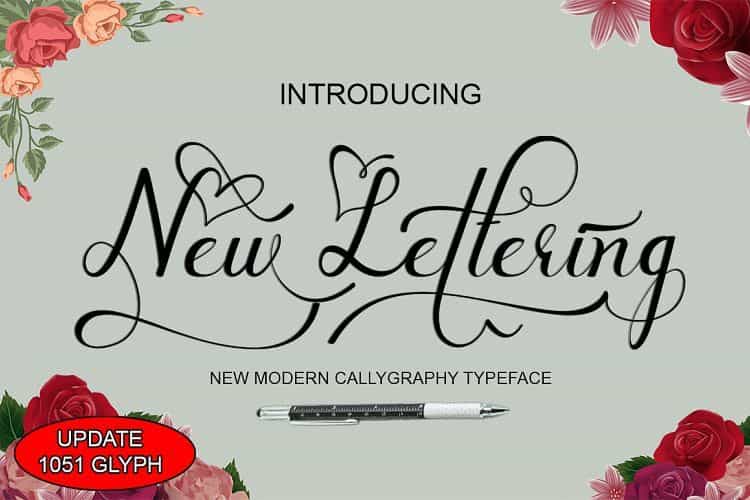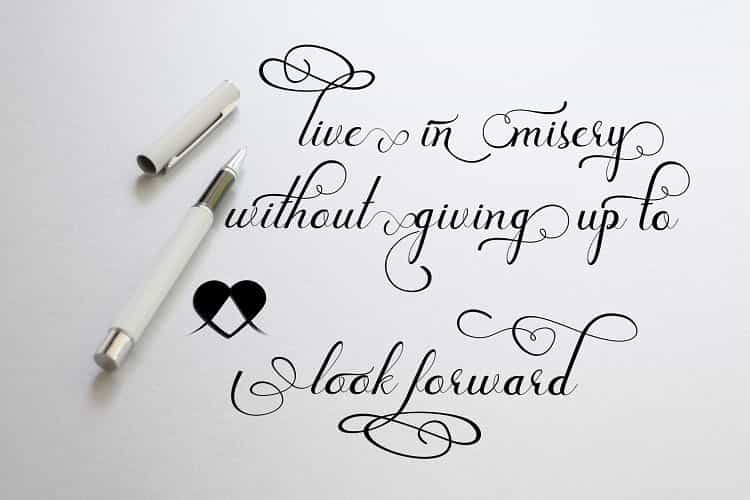
New Lettering Font is a modern calligraphy font with many decorative characters and lively descenders. New Lettering font for greeting card, logotype, wedding, invitation card, signature mark and etc.